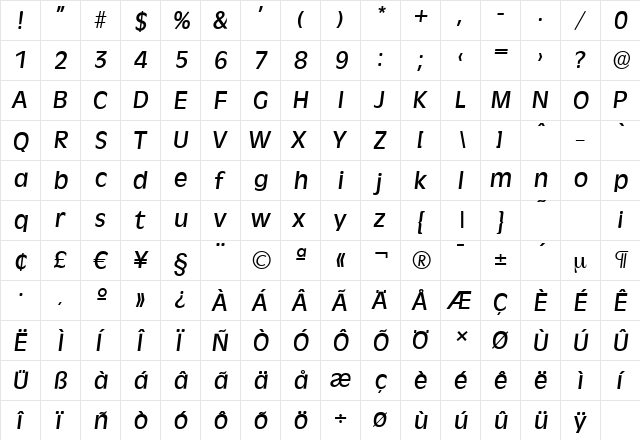
RavennaSerial-Medium Italic Font Preview
RavennaSerial-Medium Italic
RavennaSerial-Medium Italic Font Details
Design Context for RavennaSerial-Medium Typeface
RavennaSerial-Medium takes a measured approach to typography — its balanced proportions and neutral character make it a reliable workhorse for both digital and print work. The slanted form adds forward momentum and visual energy.